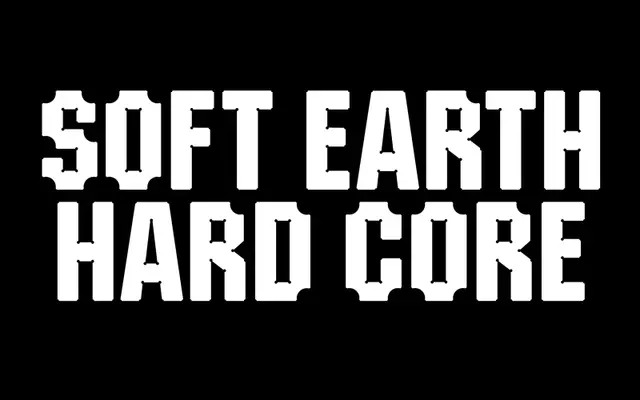
Hardy specimen from The Designers Foundry
A single-weight geometric display face by Wade Jeffree that replaces every angular intersection with a circle sized to the angle it softens.
Designed by New York-based Wade Jeffree, Hardy applies a consistent rule across its construction: wherever two strokes meet at 45° or 90°, a circle replaces the corner, with the circle's diameter determined by the angle's measure. The result is a face that reads as both chiselled and softened, giving it a slightly unusual personality within the geometric display genre. Available as a single Regular weight, it suits headline and branding work where a distinctive geometric character is wanted without resorting to conventional sharp-cornered letterforms.
Hardy is a display typeface with a geometric construction defined by circular cuts at every angular intersection, replacing 45° and 90° angles with circles. Its strong personality and chiselled form place it firmly in the geometric display category.